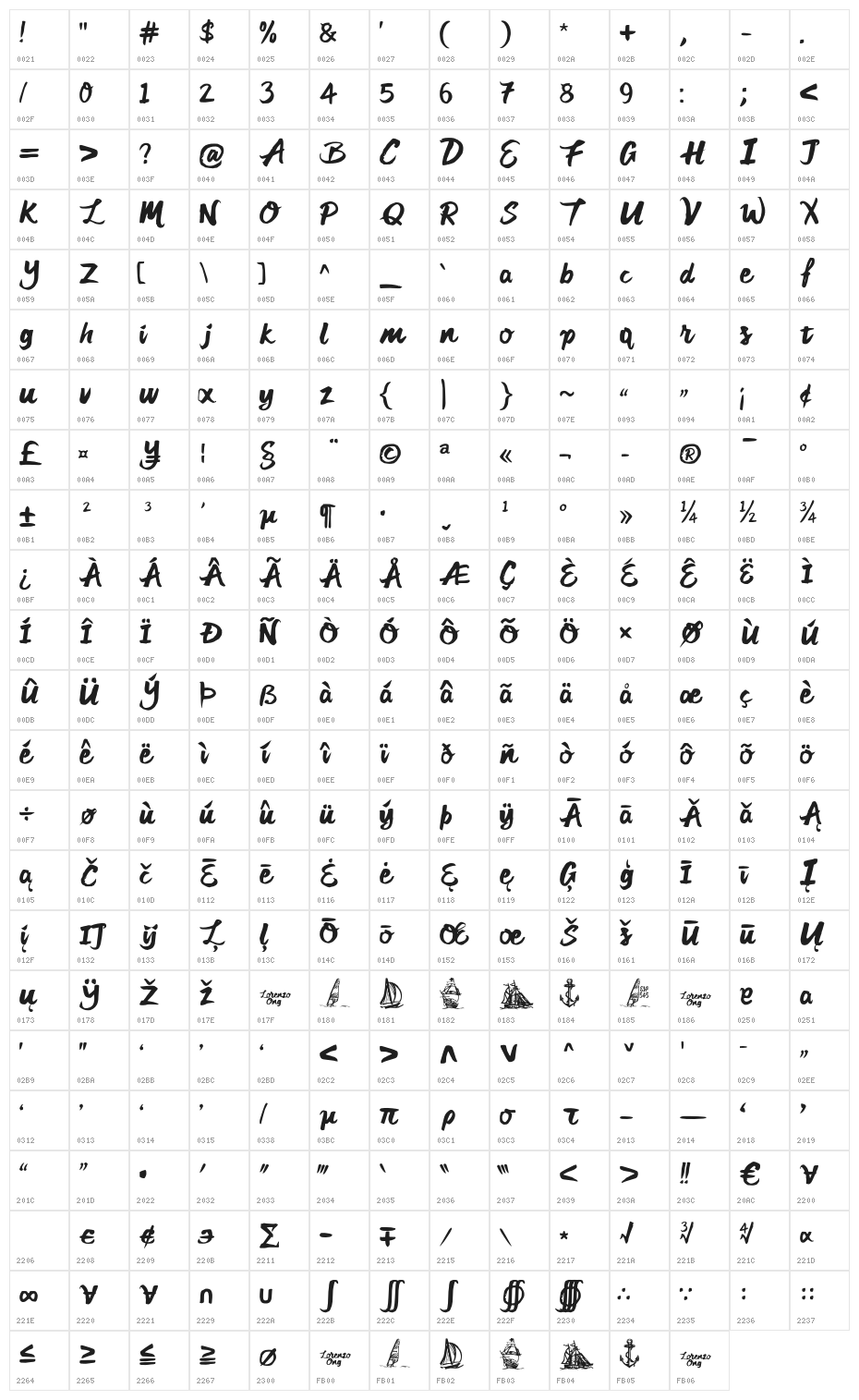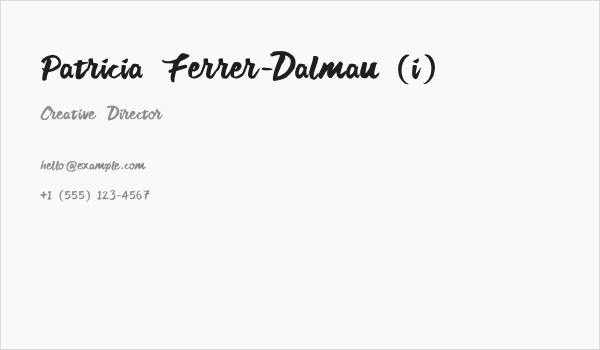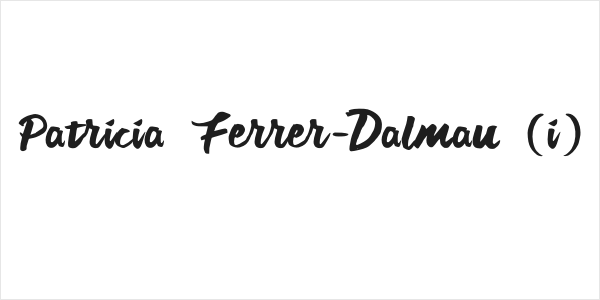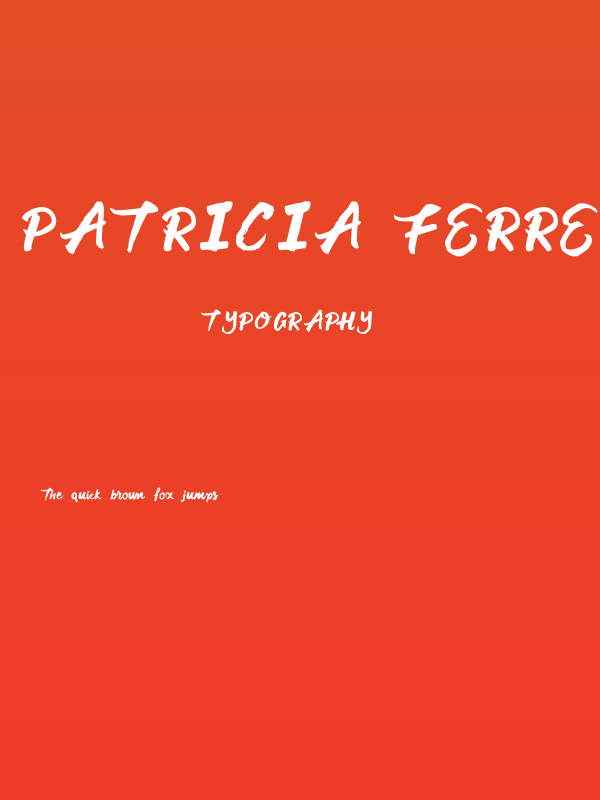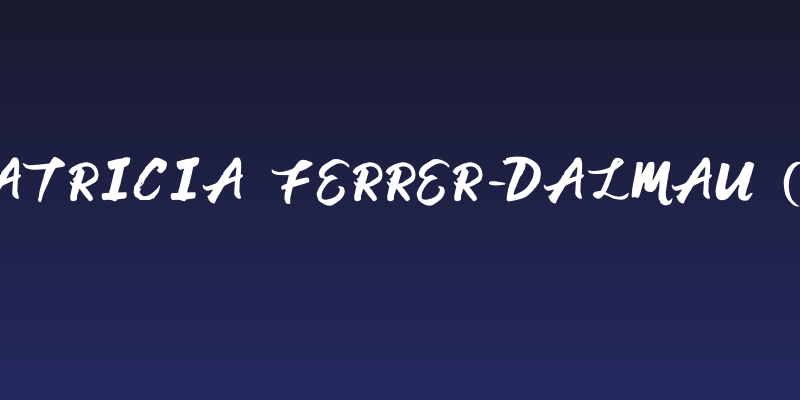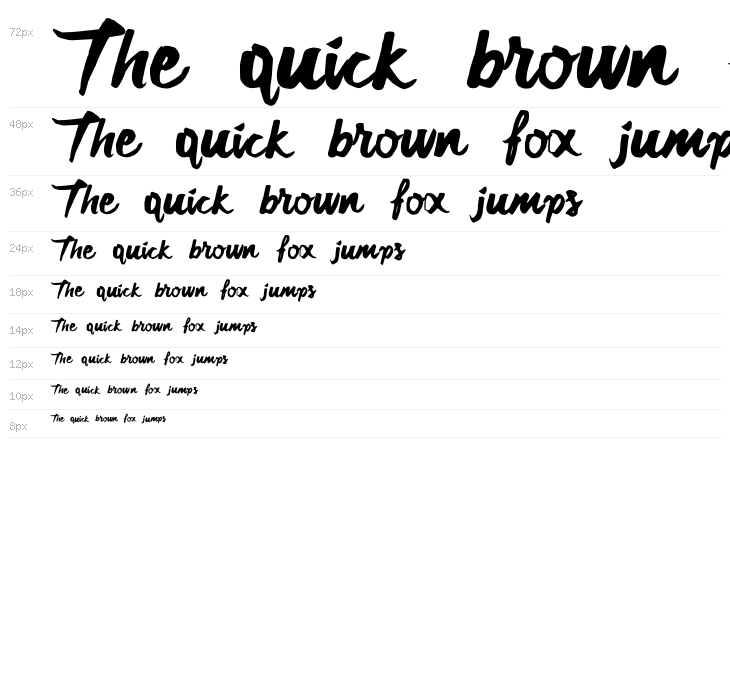
Patricia Ferrer-Dalmau (i) Font
Patricia Ferrer-Dalmau (i) Description
This font exhibits a bold and expressive handwritten style, characterized by its fluid and dynamic strokes. The uppercase letters are slightly slanted, giving a sense of movement and energy, while the lowercase letters maintain a consistent flow with rounded edges and smooth curves. The numerals are bold and clear, matching the overall aesthetic of the alphabet. Special characters are creatively integrated, maintaining the playful and artistic feel of the font. This style is perfect for projects that require a personal touch or a creative flair.
| Proposed Projects | Ideal for greeting cards, invitations, artistic posters, branding, and social media graphics. |